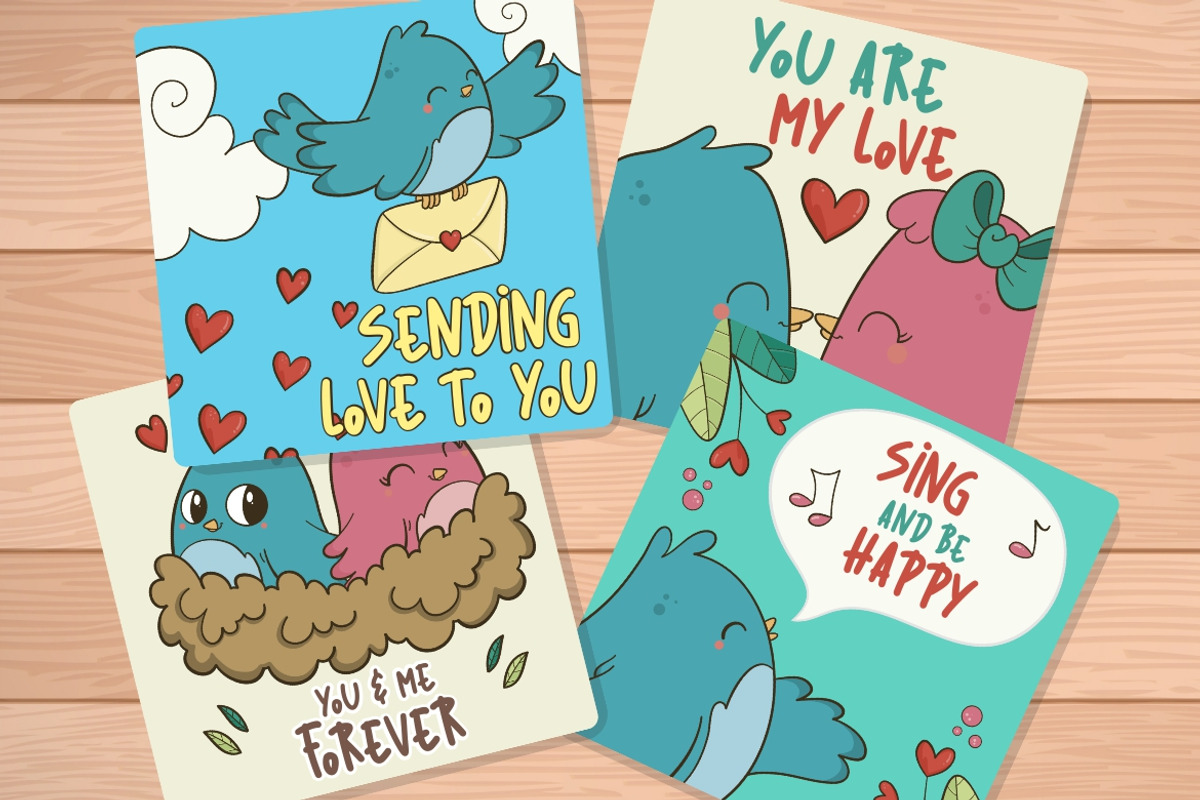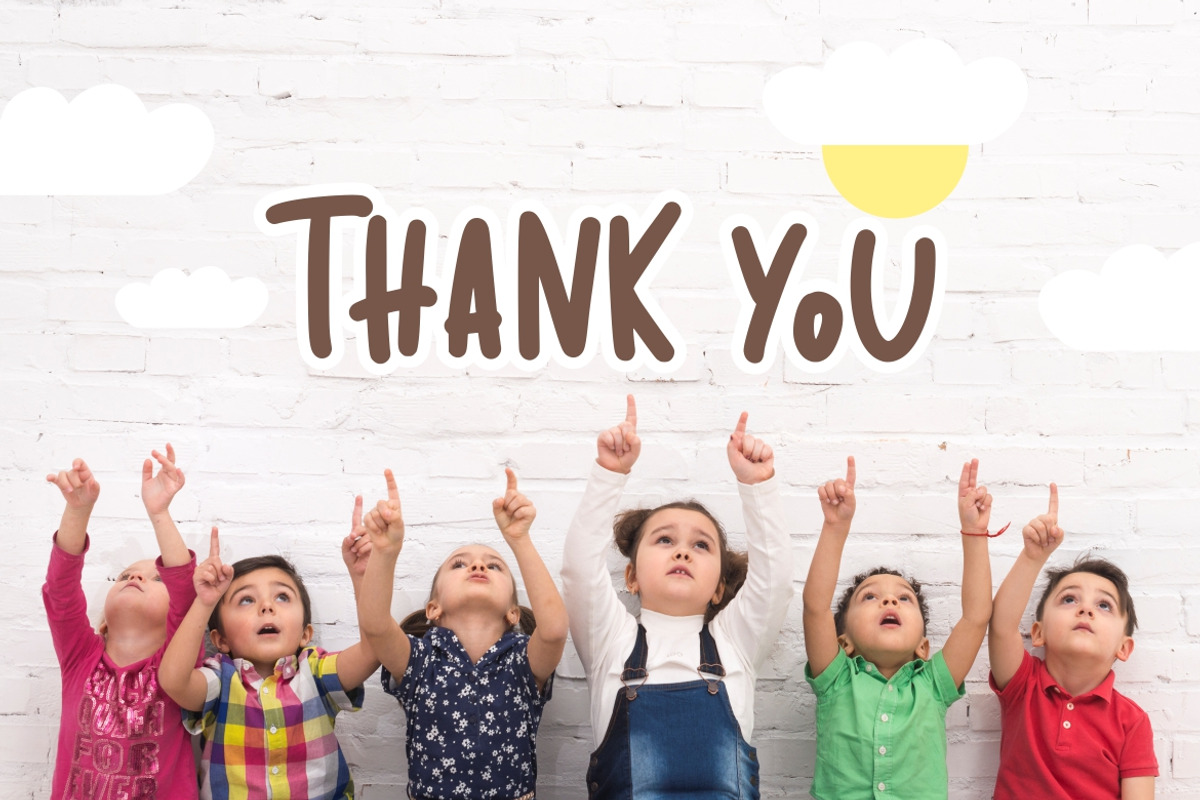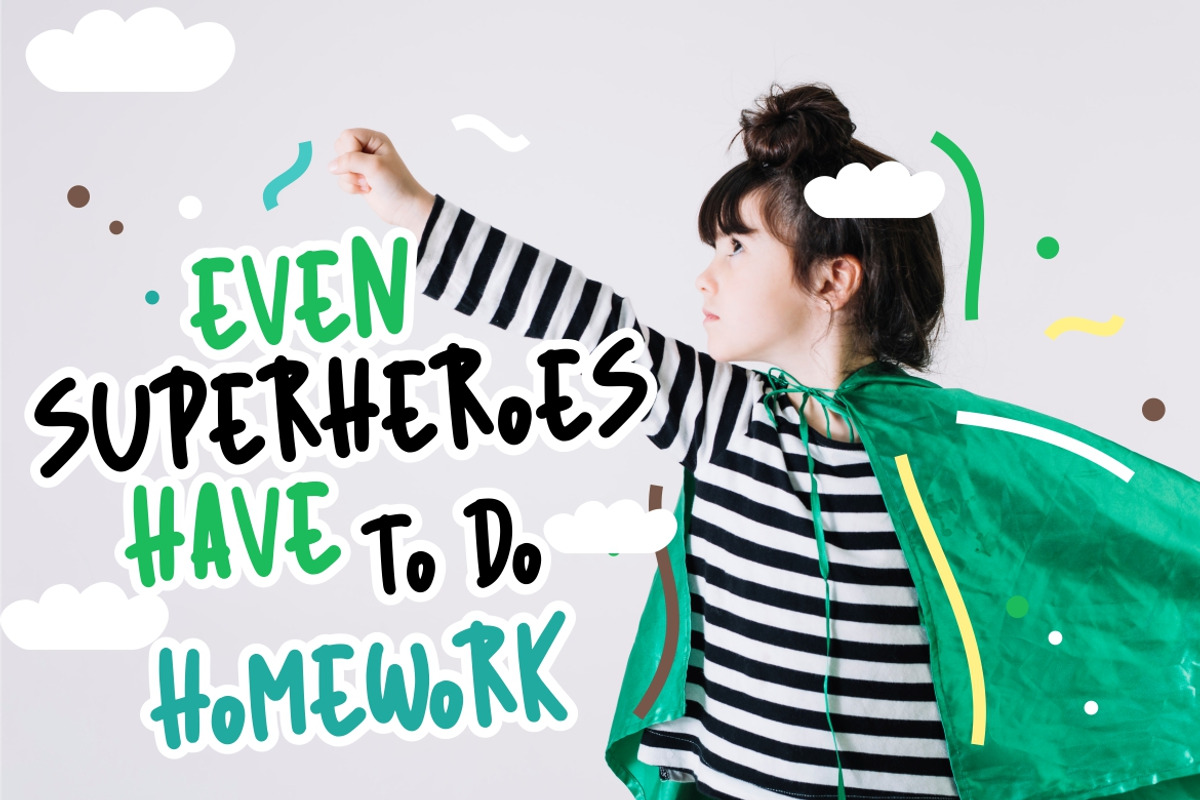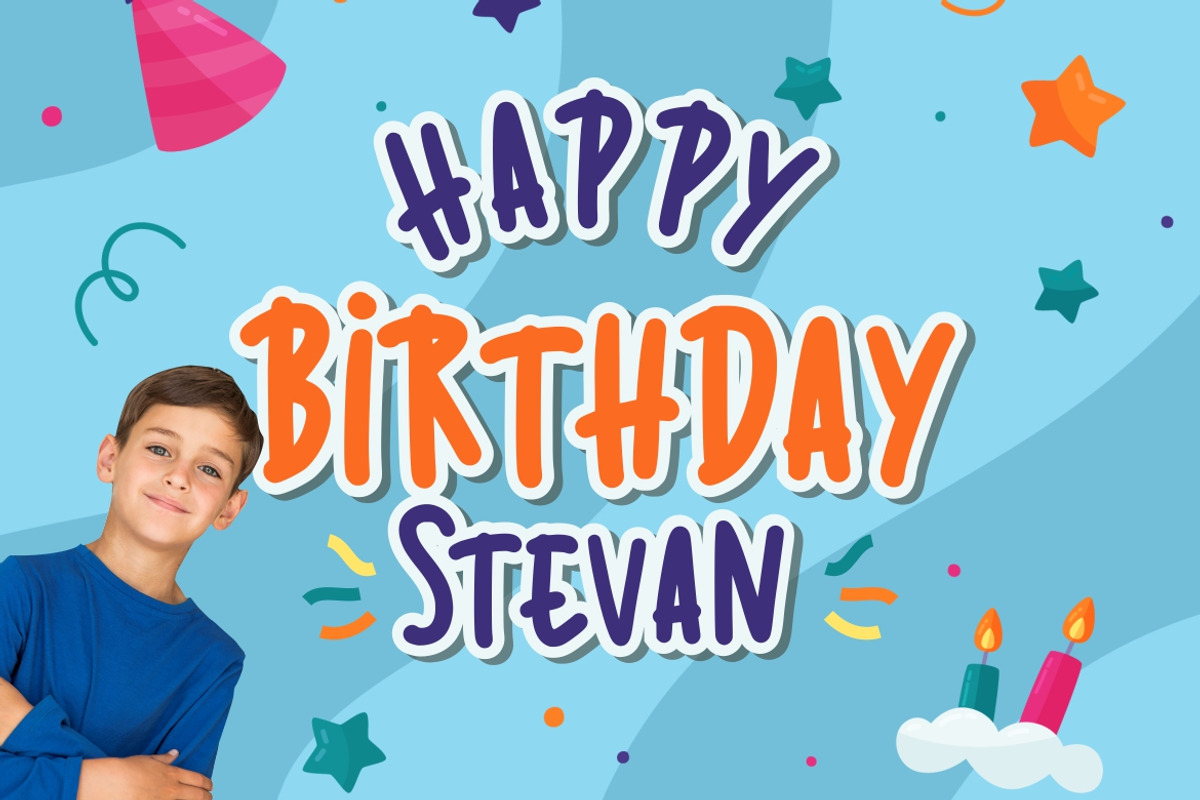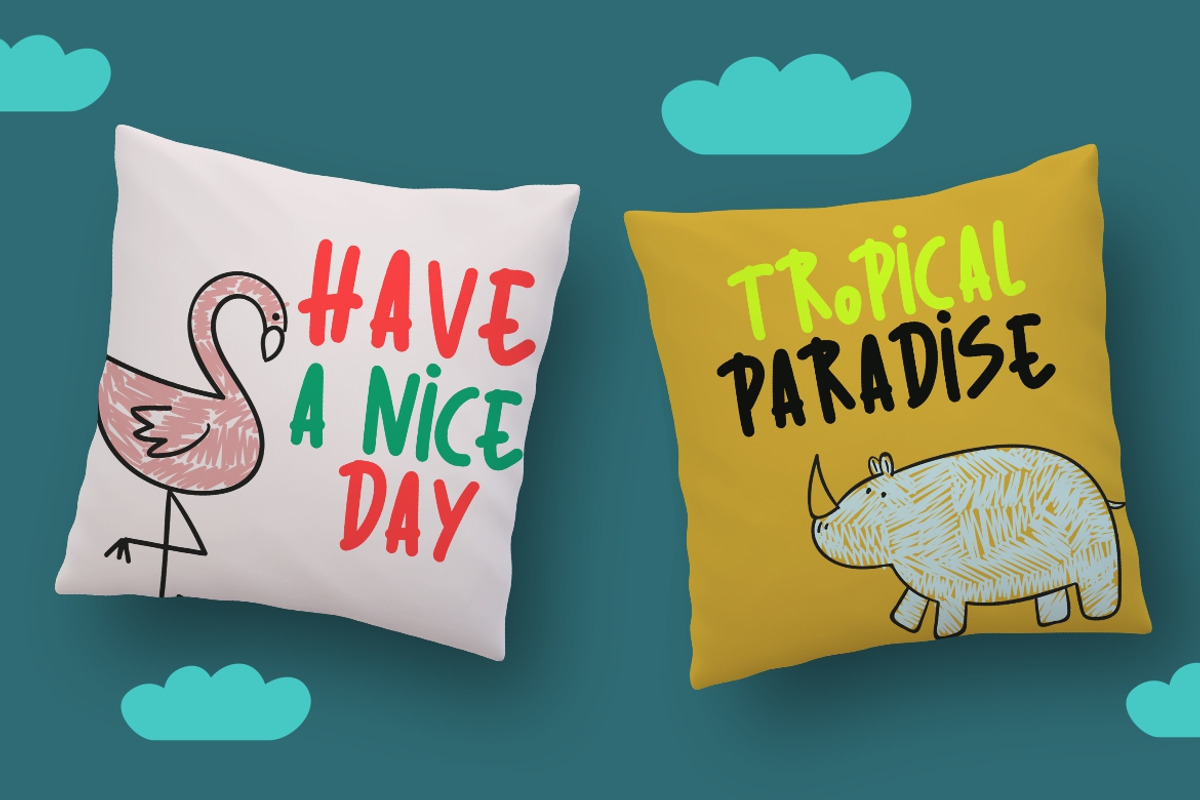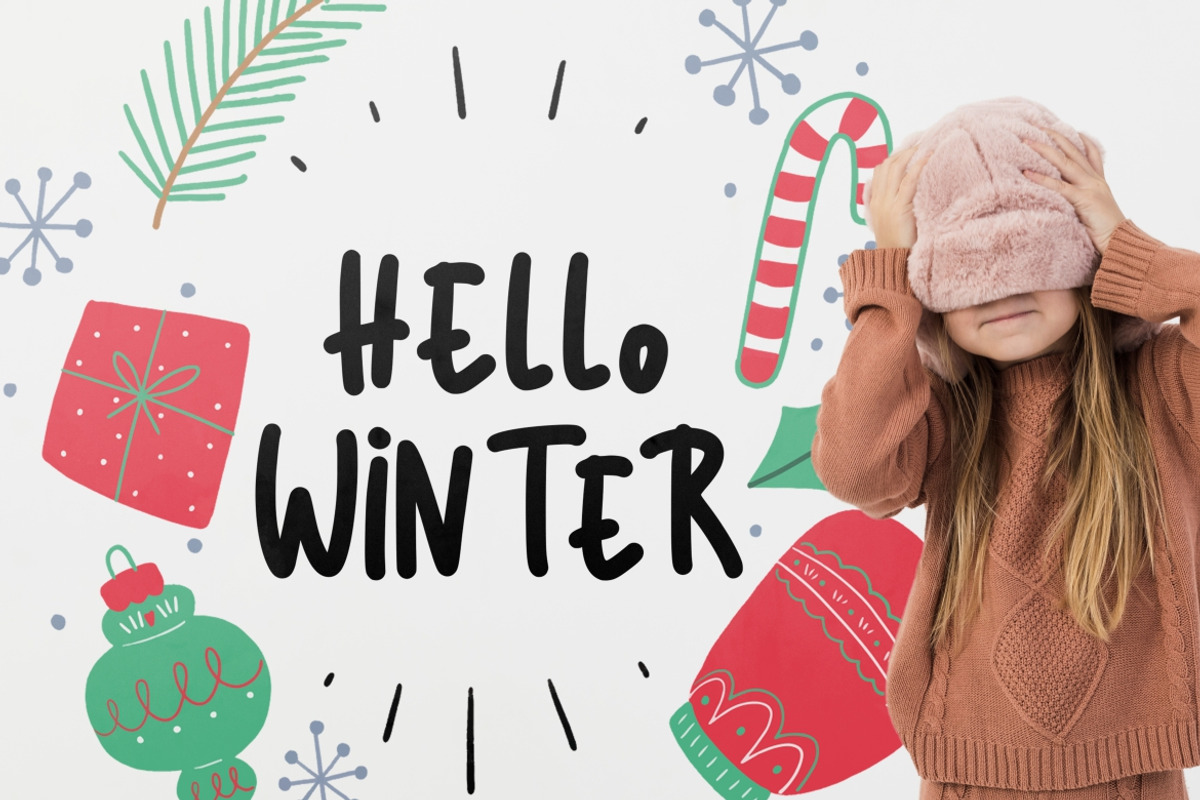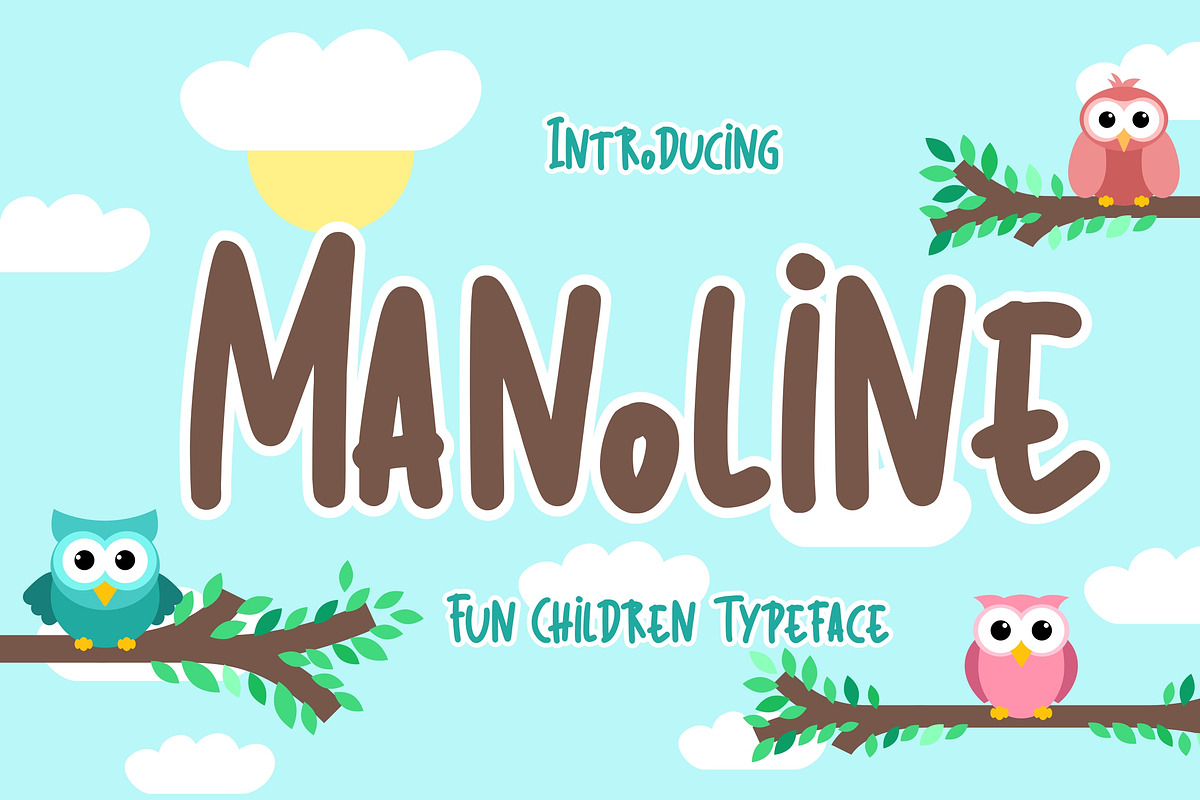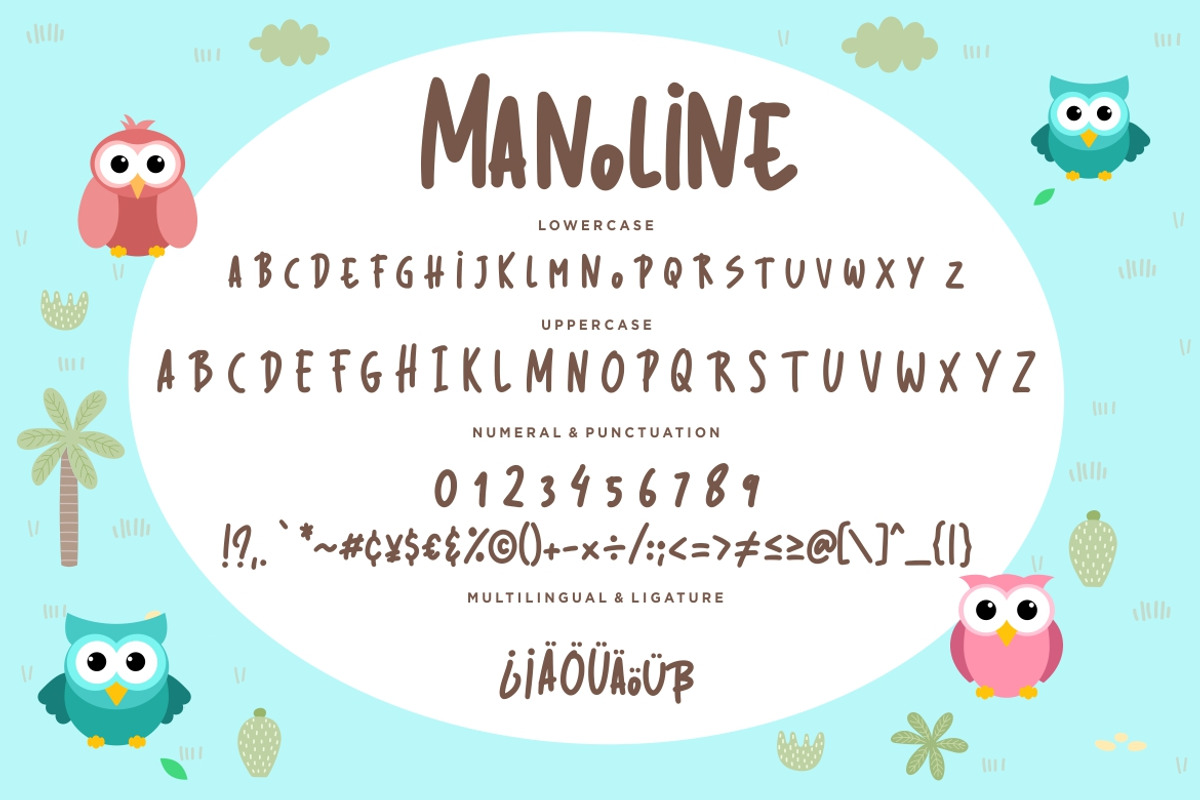
Manoline Fun Advertisement Font
Manoline is fun monoline font which suitable to use for children related occasion.
Manoline is perfect for branding projects, logo, wedding designs, social media posts, advertisements, product packaging, product designs, label, photography, watermark, invitation, stationery and any projects that need handwriting taste.
Manoline Fun Advertisement Font by Creatype Studio fits naturally into Branding, posters, packaging, typography.